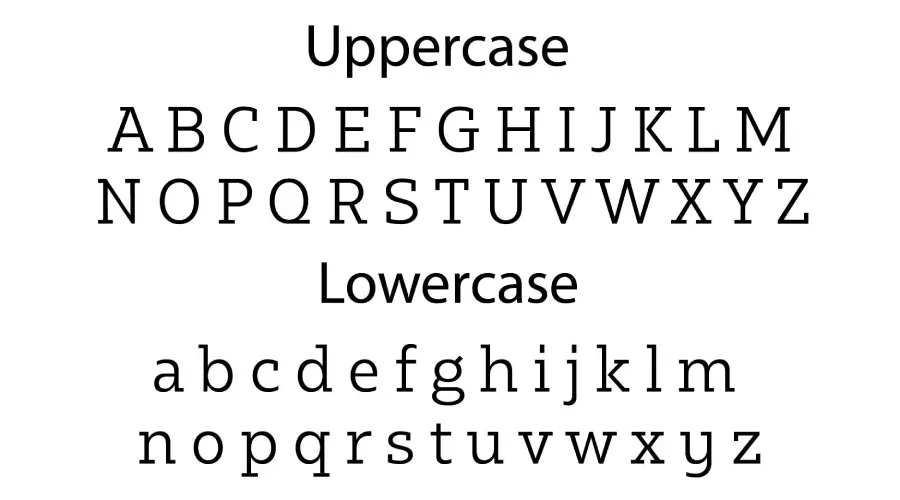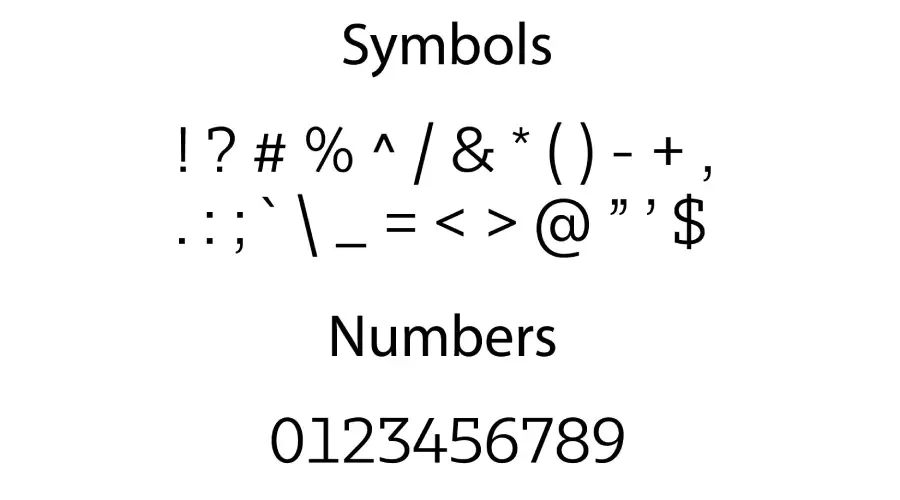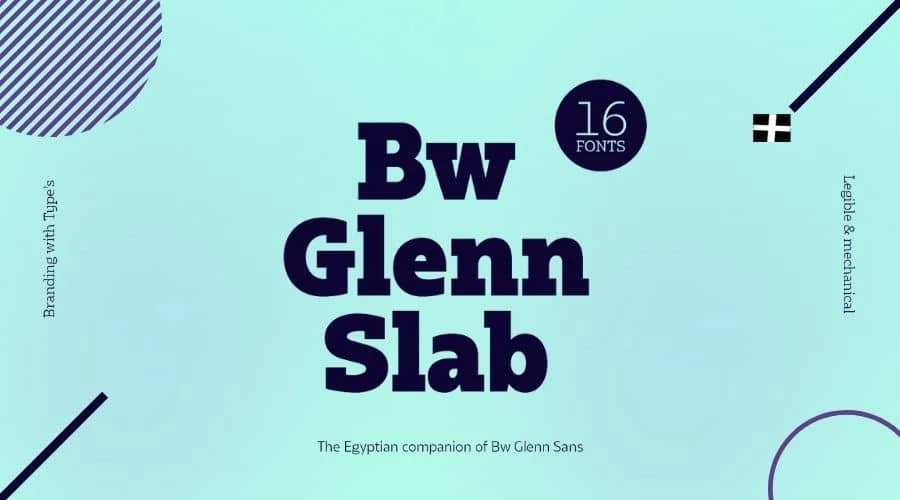
The Bw Glenn Font is a Slab Font Family that has a strong feel and is very solid. The font’s clean and legible geometry and open shapes make it a great choice for print and screen. It is also the Egyptian companion to Bw Glenn Sans. Both font families were created in parallel, so they make a great complement.
Alberto Romanos designed the Bw Glenn Slab. It is available in 8 weights, from Hairline to Black, with matching italics and tabular old-style figures. Extended Latin is supported by Bw Glenn Slab, giving designers around the world a rich functional palette that adds a little personality.